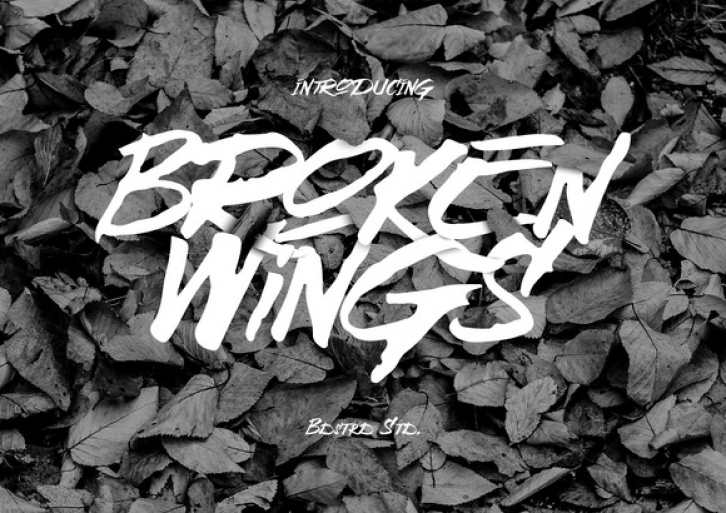
Broken Wings Typeface is a great font that was designed by Bdstrd Std. Imagine the amount of combinations you can create using this font! The archive is 14.72 MB and it was released on March 15, 2016. Broken Wings Typeface looks beautiful on wedding invitations, greeting cards, logos, posters, labels, t-shirt designs, logos, business cards and is perfect for use in ink or watercolor works, fashion, magazines, packaging and food menus, children's books and more!